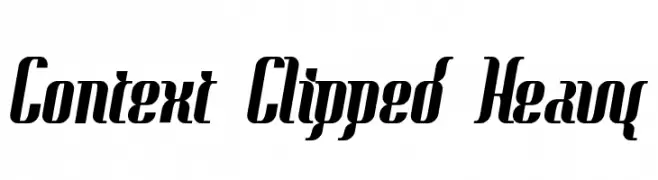
A bold, slanted font with tight spacing and strong visual impact.
A bold, hand-drawn font with a playful and dynamic style.
A bold, angular script font with a dynamic and energetic style.
A bold, cracked texture font ideal for impactful designs.
A modern, geometric font with a unique two-line style.
A playful, bold handwritten font with rounded strokes and a casual vibe.
A futuristic, geometric font with sharp angles and a bold, modern style.
A bold, decorative font with a 3D shadow effect for dynamic visual impact.
A dynamic, expressive handwritten font with energetic strokes and fluid motion.
A bold, geometric font with a playful, retro aesthetic.